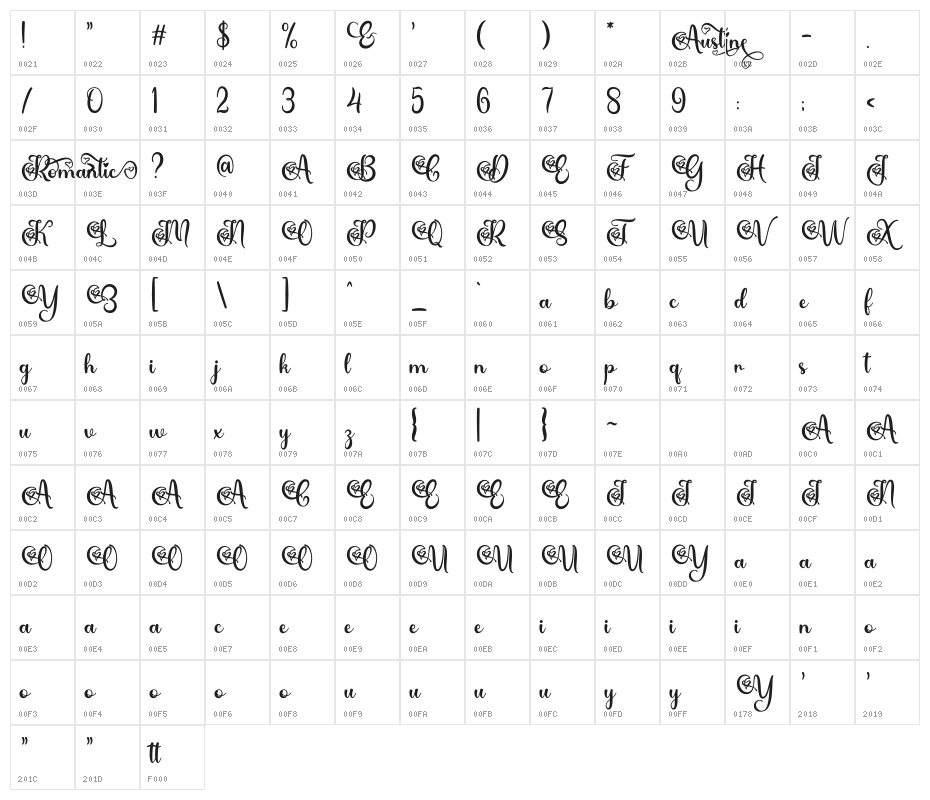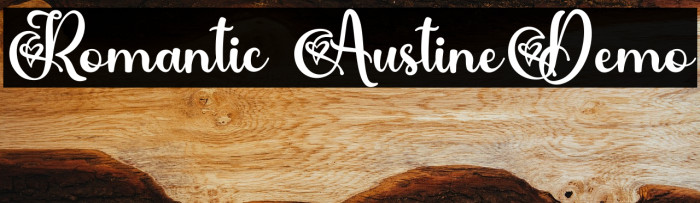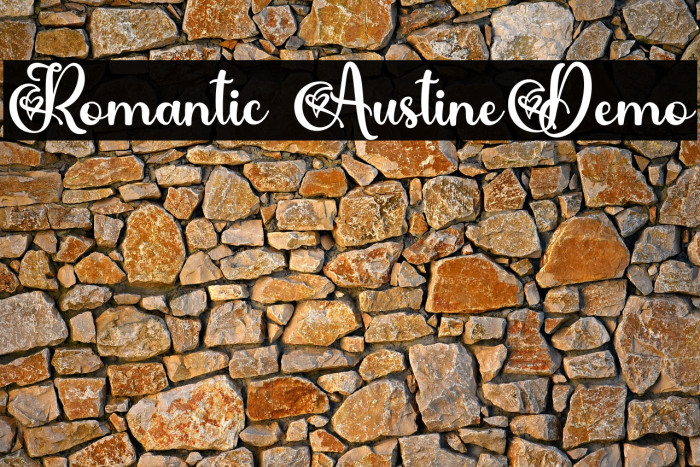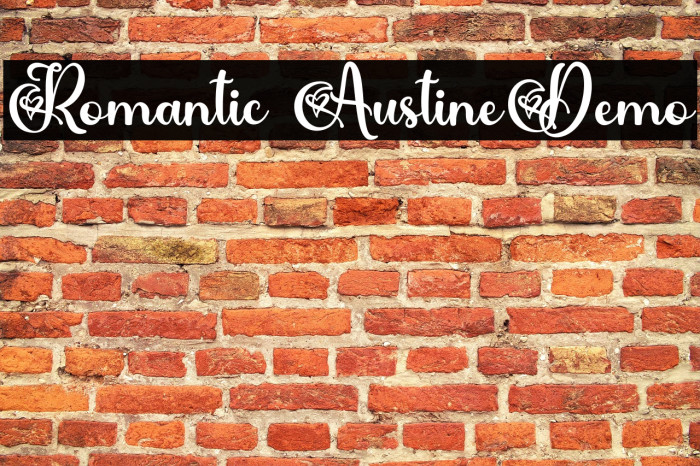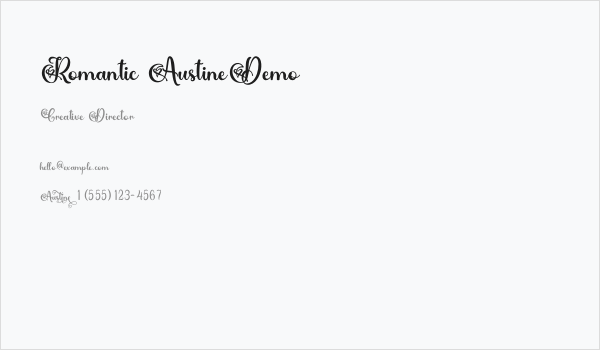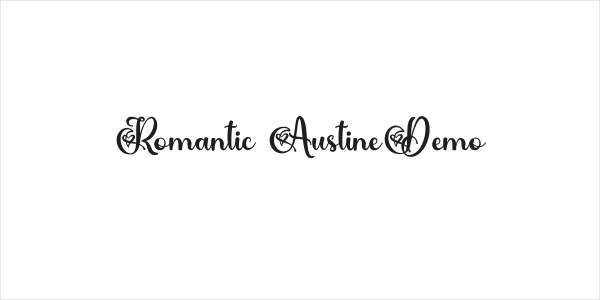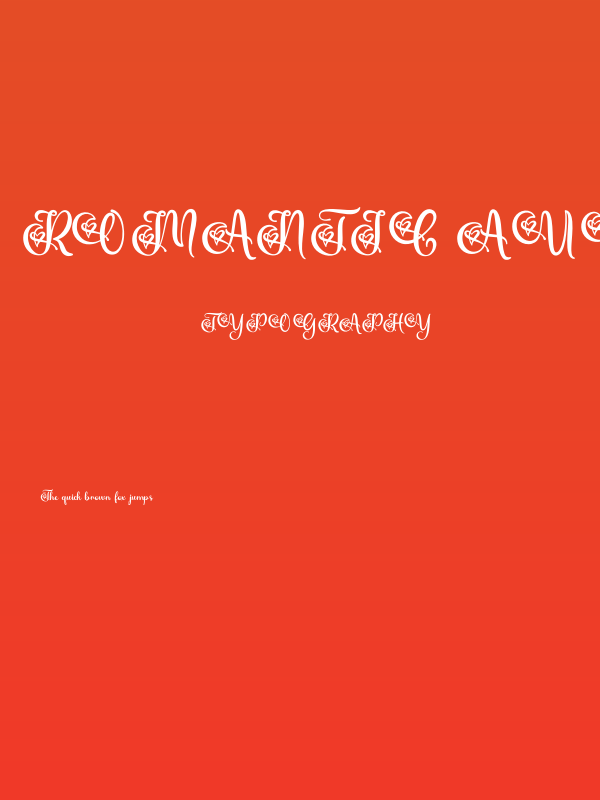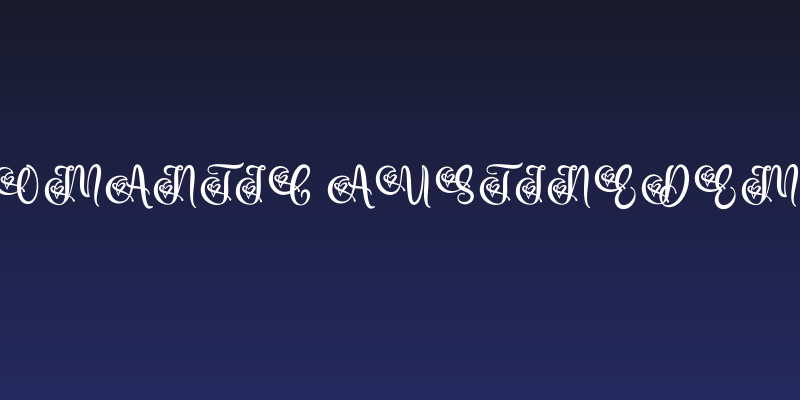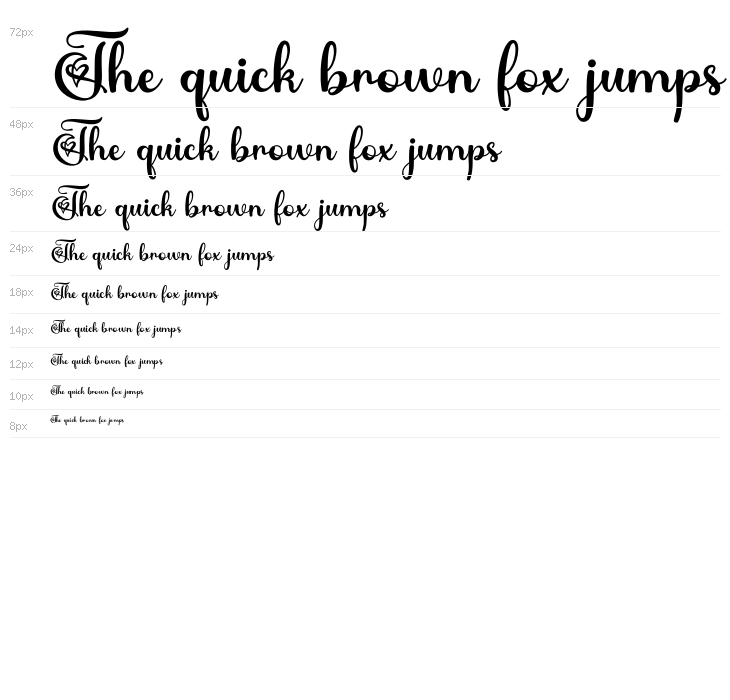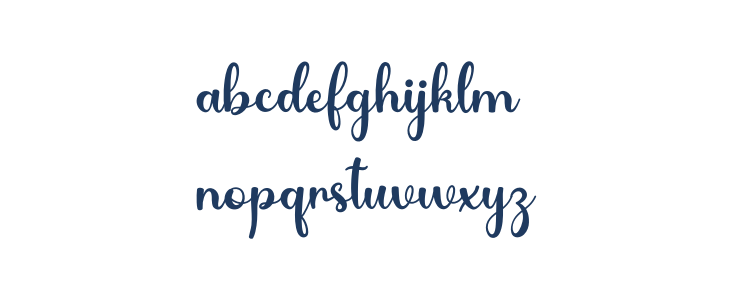
Romantic AustineDemo Font
Romantic AustineDemo Description
This font features an elegant and decorative style, combining both uppercase and lowercase letters with a flowing script design. The uppercase letters are particularly ornate, with intricate loops and flourishes that add a romantic and whimsical touch. The lowercase letters maintain a smooth, cursive appearance, providing a harmonious balance between the two cases. The numbers and special characters are crafted with the same attention to detail, ensuring consistency throughout the font. This font is ideal for projects that require a touch of elegance and sophistication, such as wedding invitations, greeting cards, and branding materials.